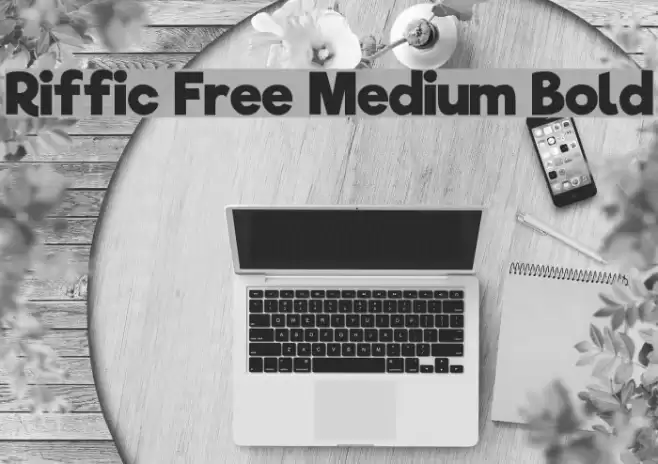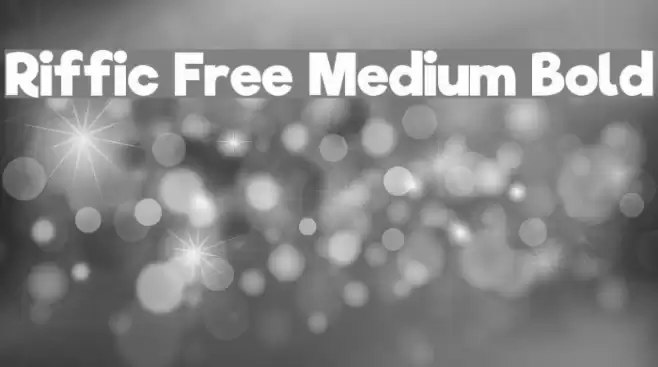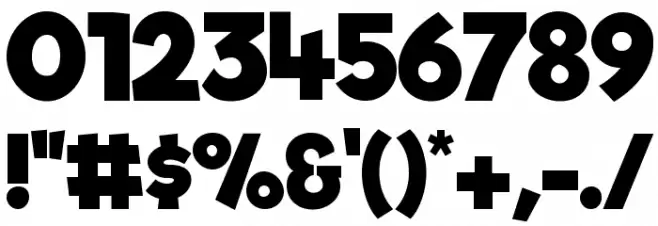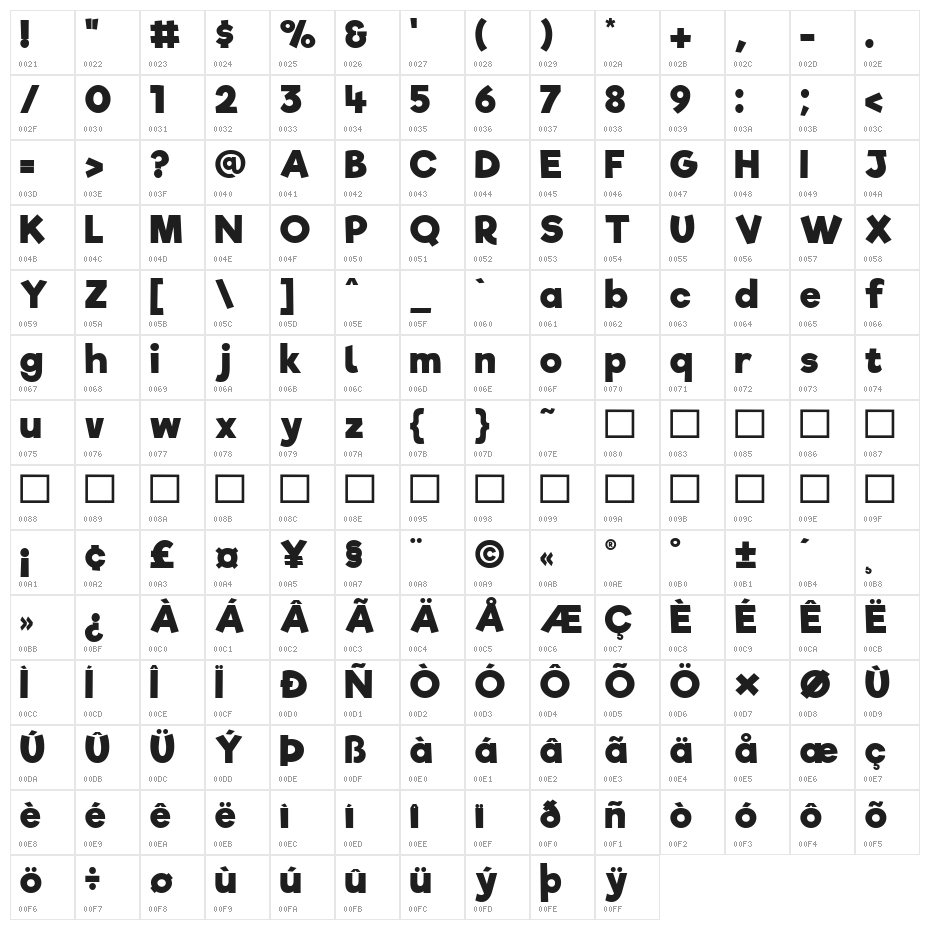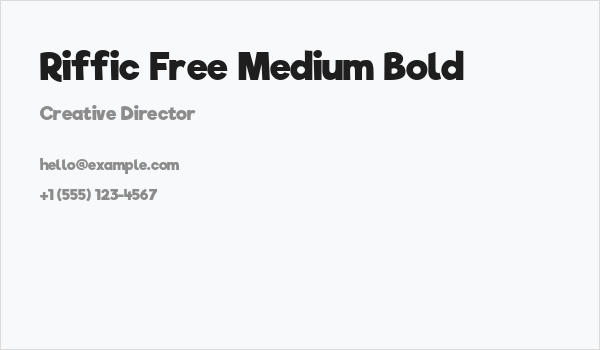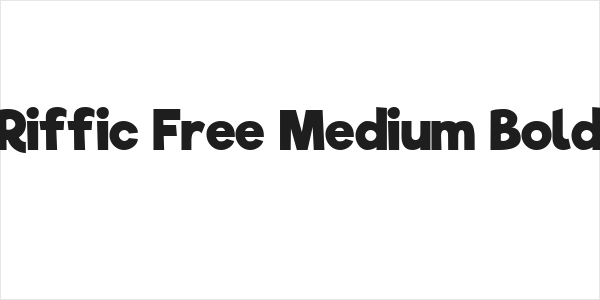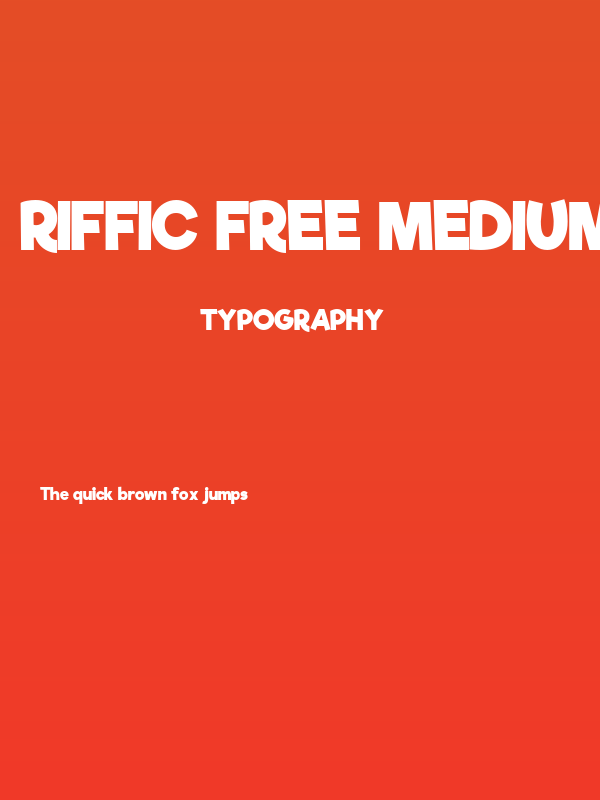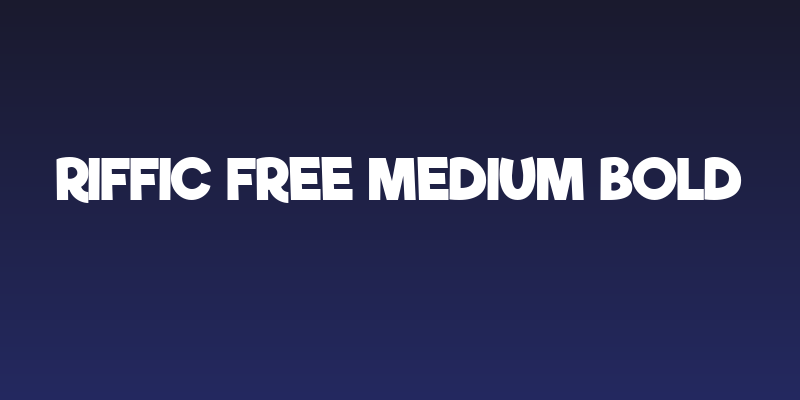
Riffic Free Medium Bold Font
Riffic Free Medium Bold Description
This font features bold, geometric letterforms with a strong presence. The characters are constructed with uniform stroke widths, giving them a solid and impactful appearance. The uppercase letters are particularly striking, with a modern, clean design that emphasizes clarity and readability. The lowercase letters maintain the same boldness, ensuring consistency across the typeface. The numerals are equally robust, designed to stand out with their clear, distinct shapes. Special characters are included, matching the bold style of the alphabet. This font is ideal for making a statement, with its powerful and confident aesthetic.
A bold, geometric font with uniform stroke widths and a modern design from Uncategorized fonts.